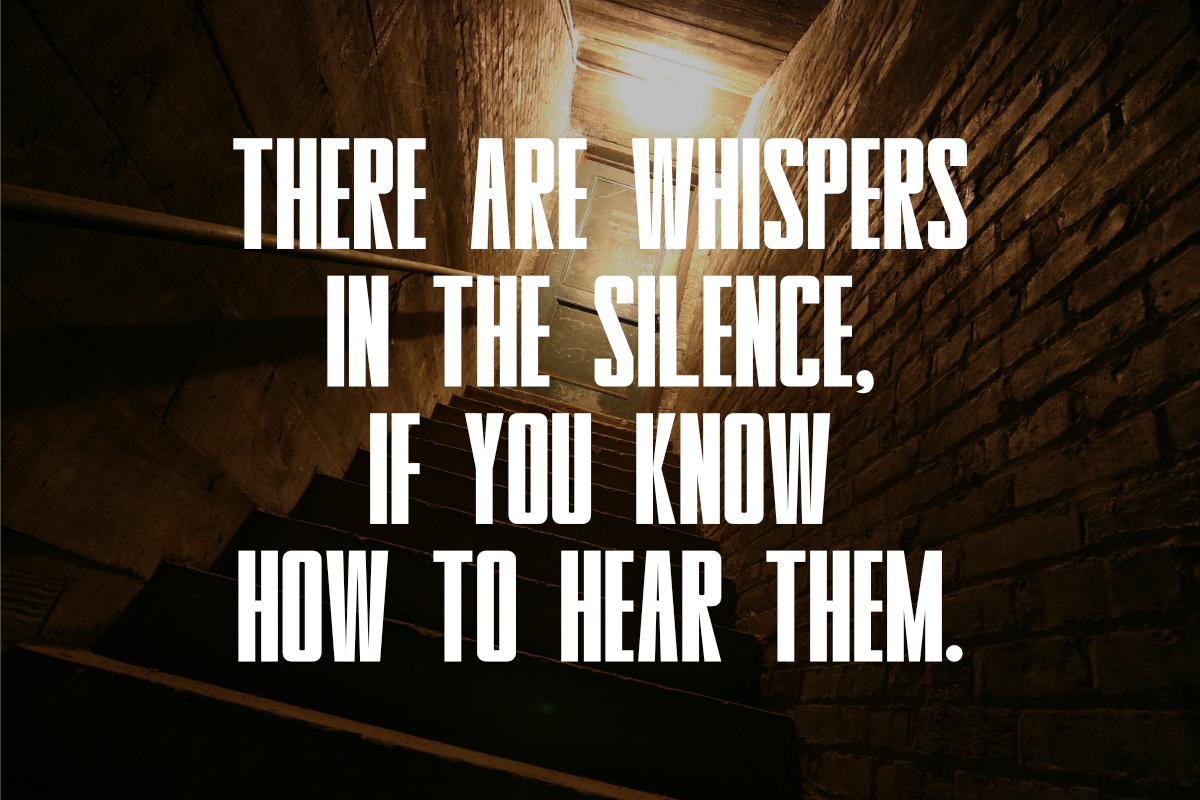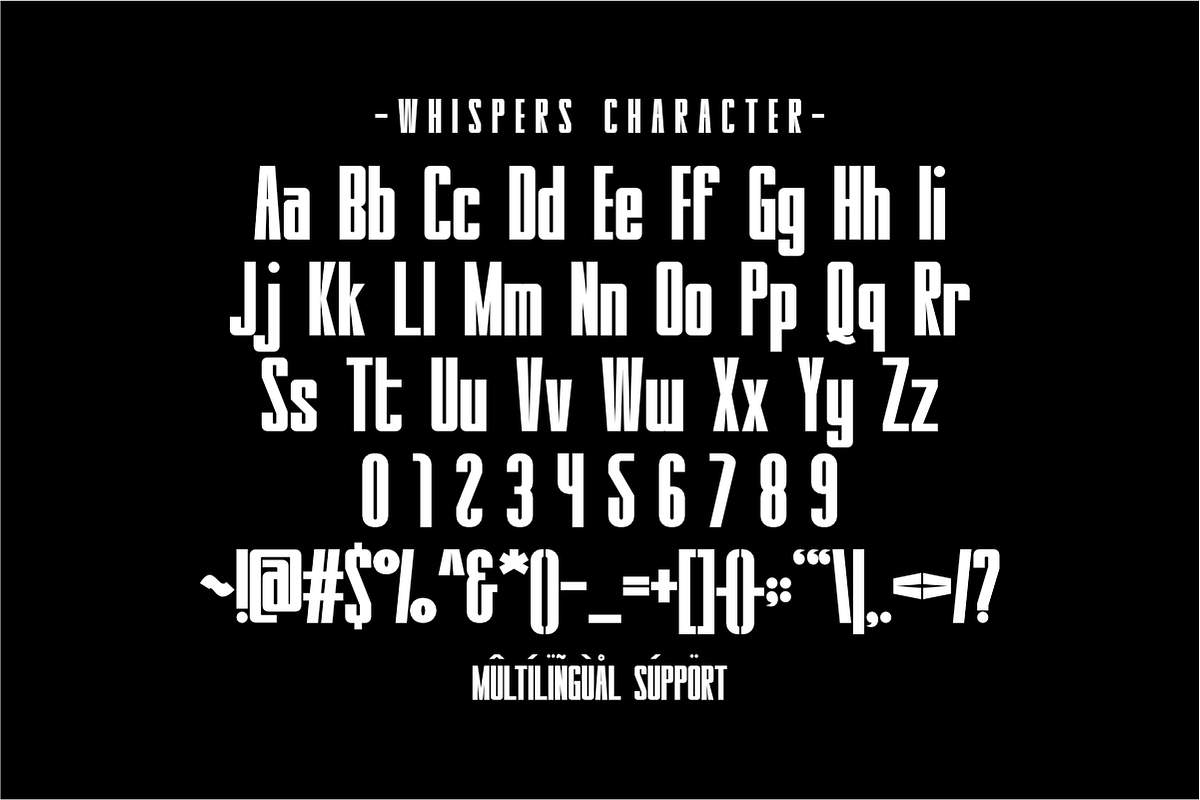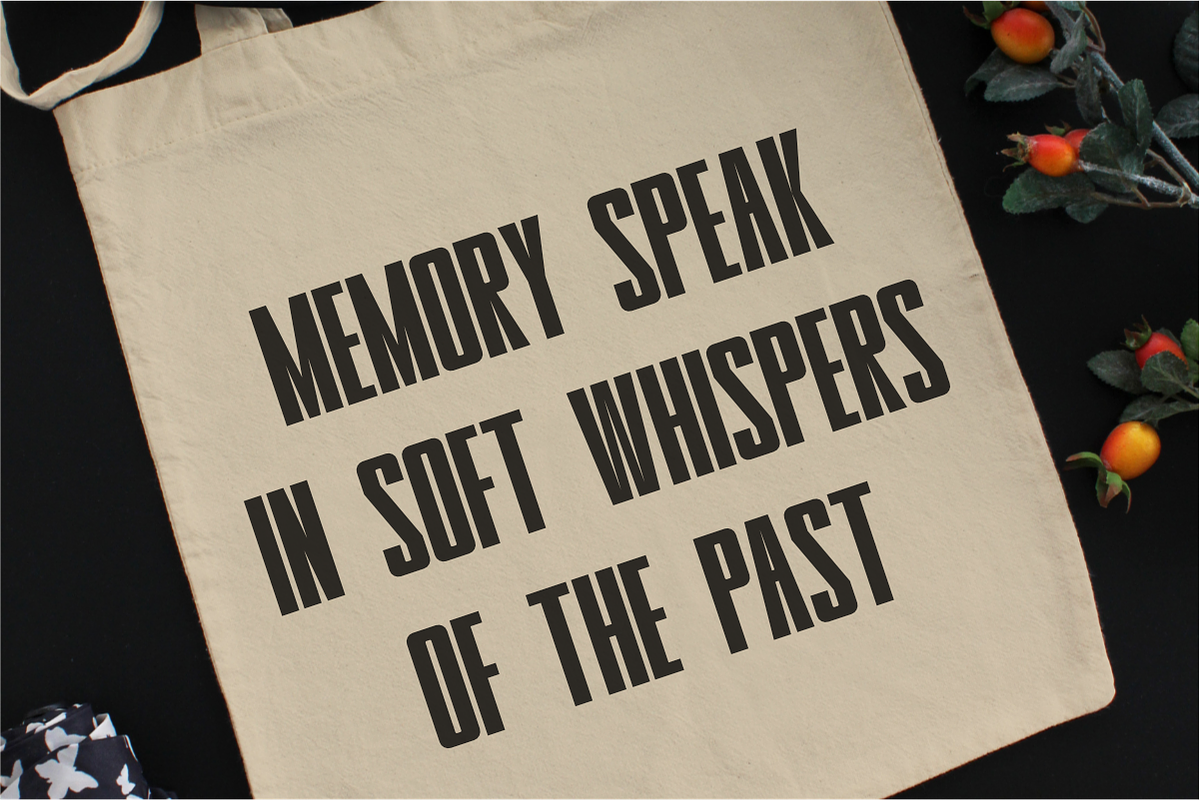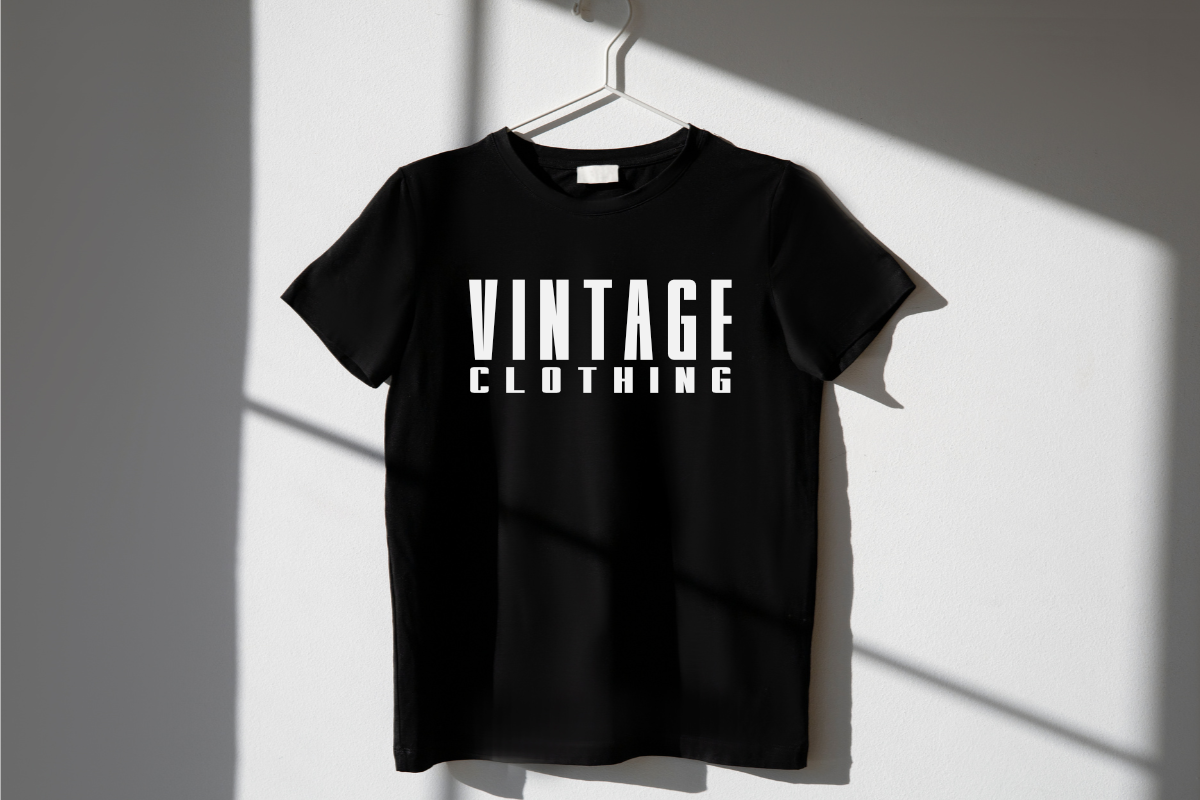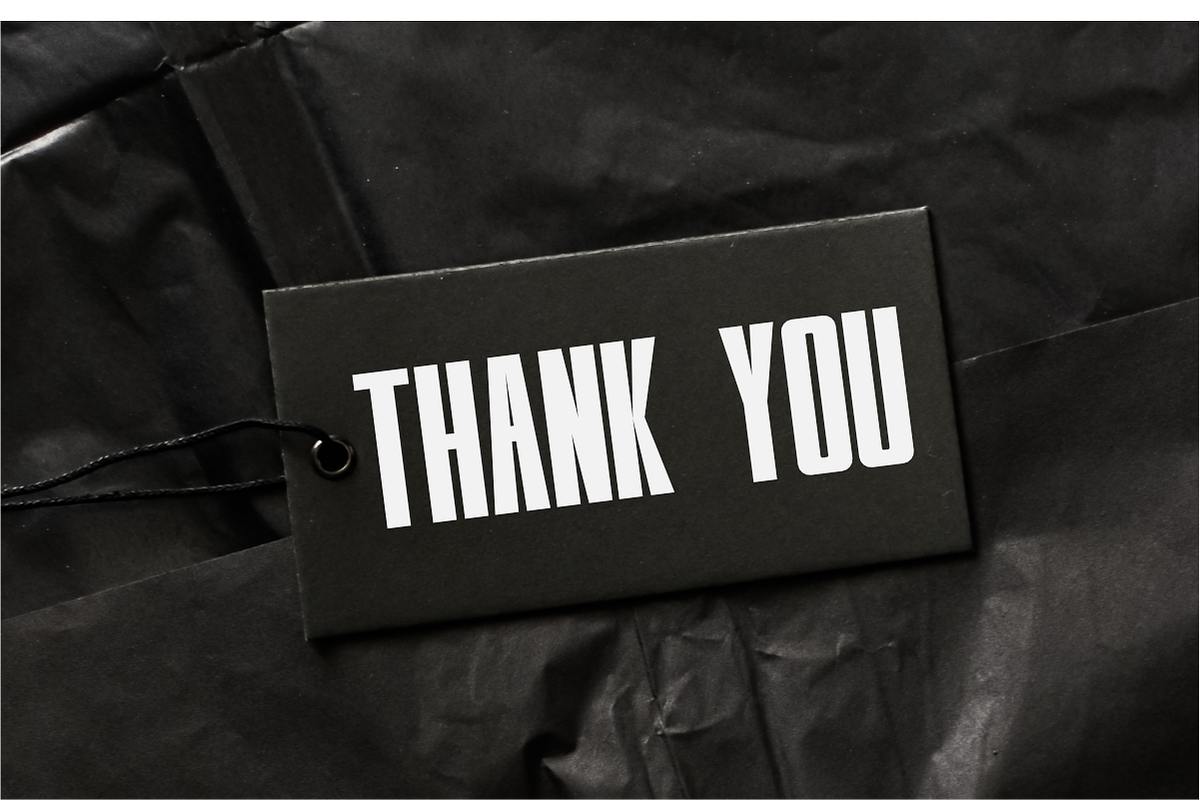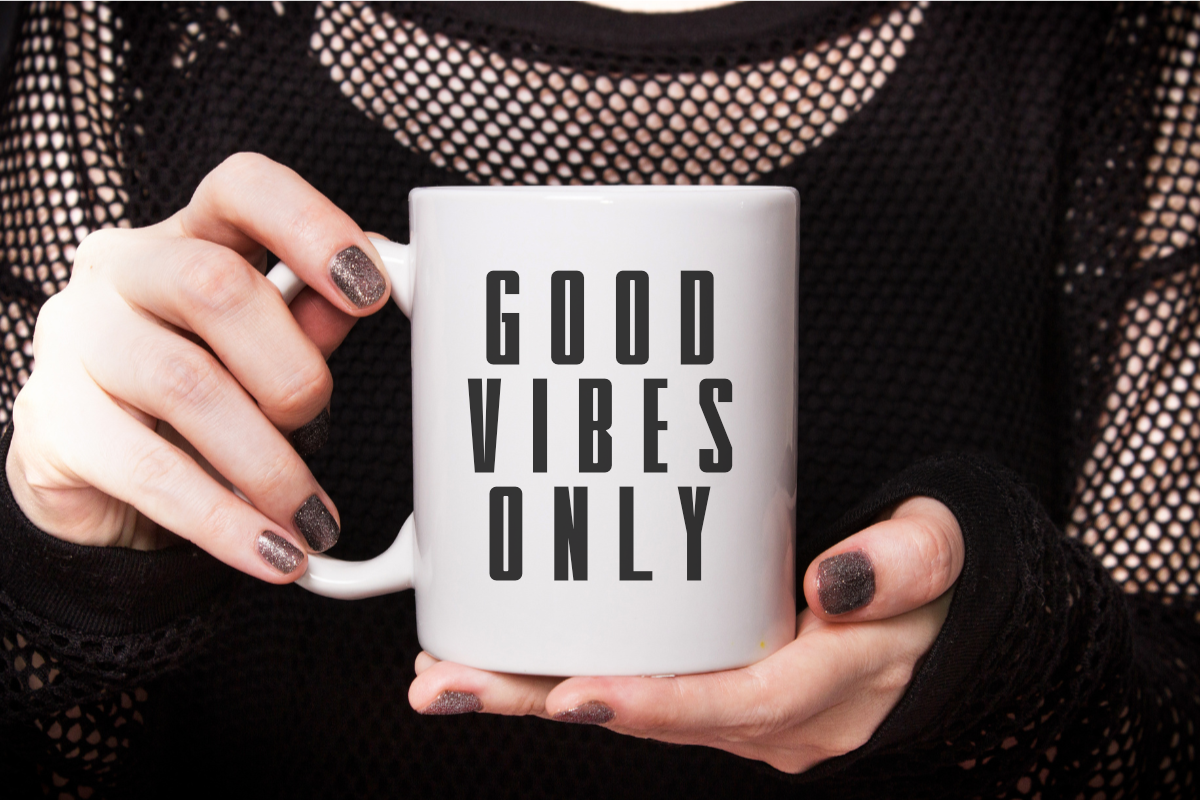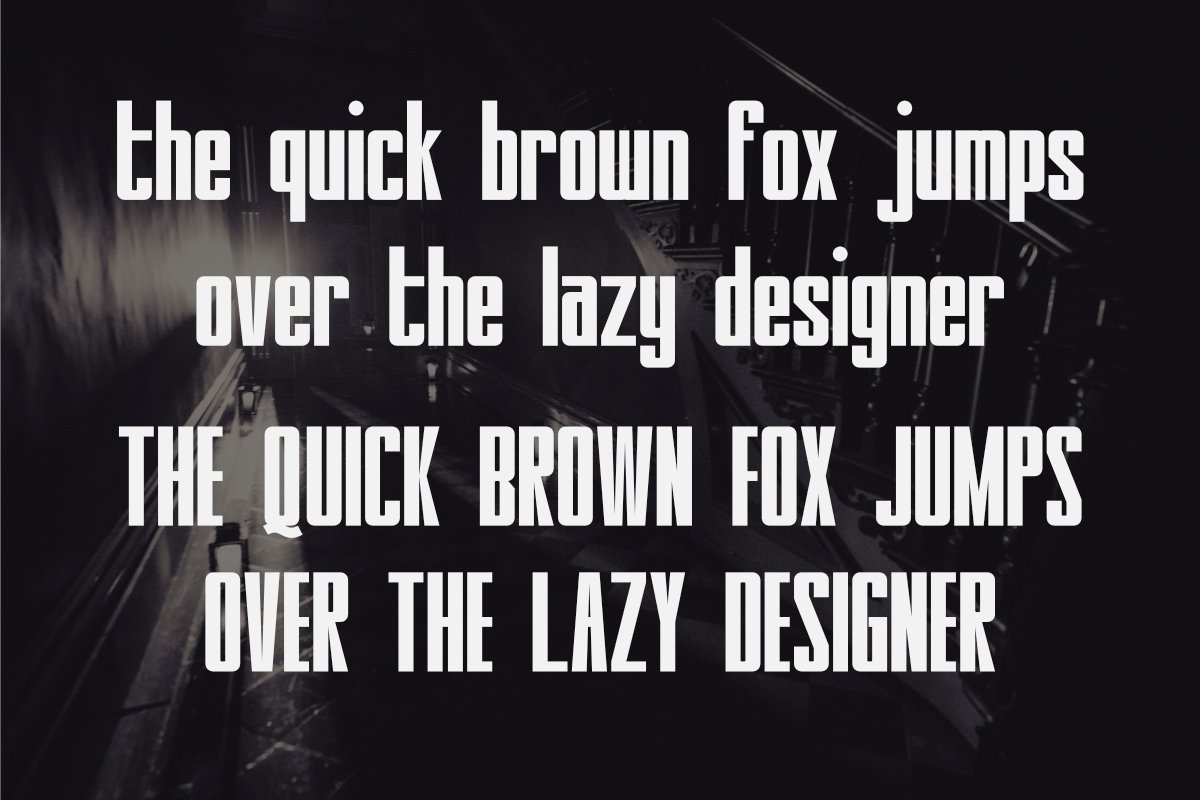
Whispers - Condensed Sans Serif
Whispers is a bold and condensed sans serif font that exudes a sense of modern mystery and subtle intrigue. Its tall, narrow letterforms create a striking vertical presence, making it ideal for designs that need to convey a sense of height and impact within a limited horizontal space. Perfect for headlines, posters, branding, and editorial design where a strong yet nuanced visual voice is desired. This font adds a touch of modern gothic or dark elegance to any project.